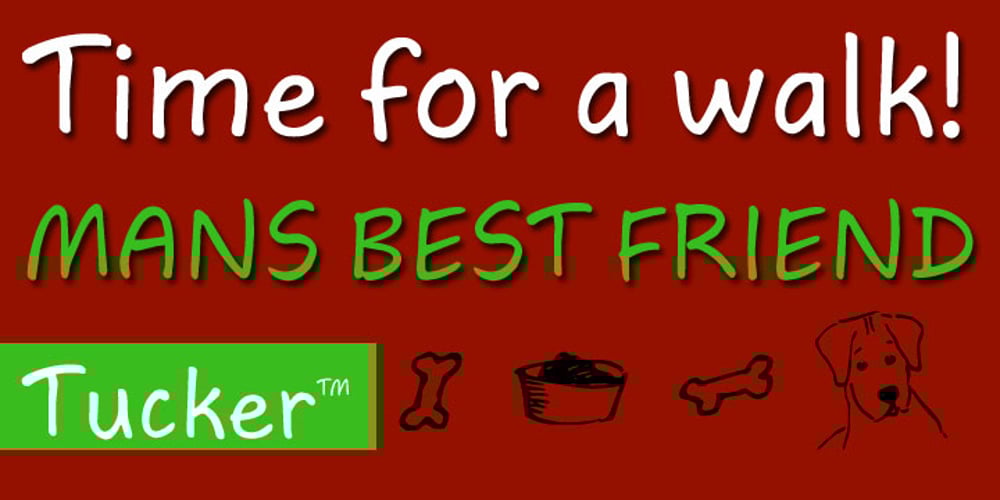
Tucker Script
Tucker Script font
Tucker Script Font Family was designed by Steve Matteson and published by Ascender. Tucker Script contains 1 styles and family package options. Tucker Script is an informal handwriting script named for an exuberant yellow Labrador Retriever. The font is perfect for memos, fliers, cards and of course, a personalized dog dish. It is wonderful for adding a jovial appearance to any document. Designed by Steve Matteson. Tucker Script Character Set – Latin 1.